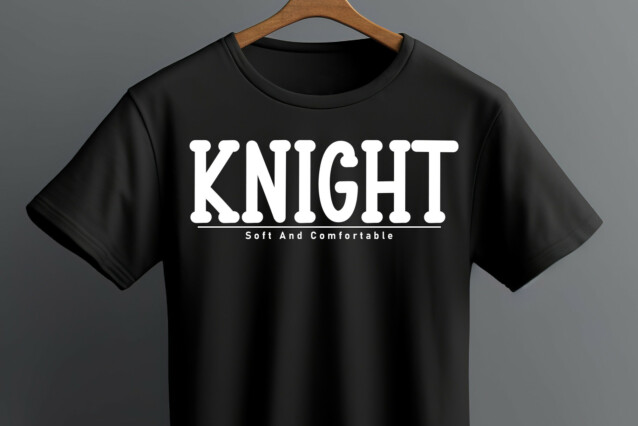
Night Summer Font
Night Summer Font is a bold and thick sans serif font. It is ideal for use on cards, invitations, stickers, posters, cards, social media, advertisments, web design and much more.